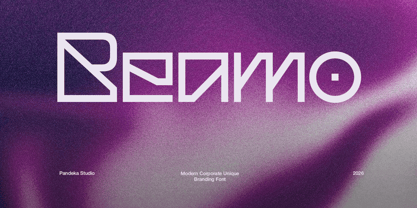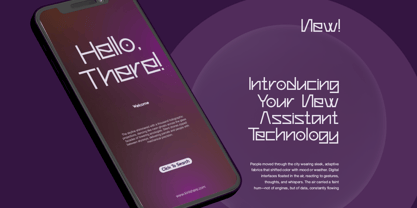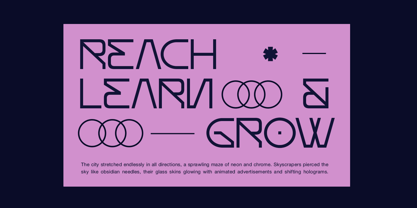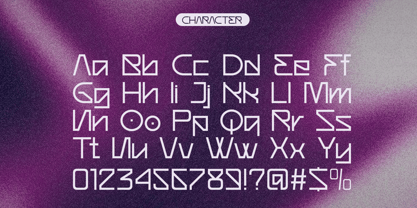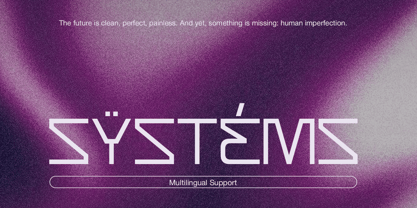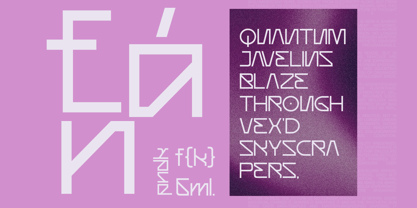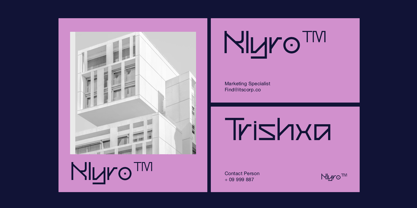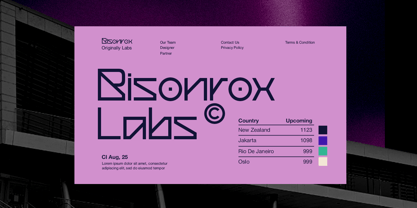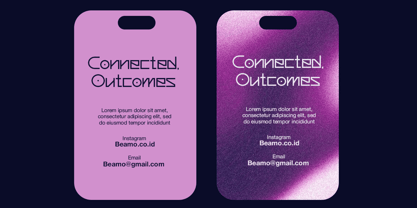
Beamo is a modern branding font with a futuristic and geometric style, designed to create clean, sleek, and innovative visual identities. Its unique letterforms combine minimalist structure with experimental shapes, making it perfect for technology branding, corporate identities, digital interfaces, posters, editorial layouts, fashion campaigns, and modern logo design. The sharp futuristic aesthetic gives every project a bold and sophisticated presence.
Designed with 2 styles: Regular and Slant, Beamo offers flexibility for creative branding and contemporary typography projects. Ideal for startup logos, sci-fi visuals, UI design, music covers, advertising, social media graphics, and modern display typography, this font delivers a strong futuristic atmosphere while maintaining readability and stylish character.
• 2 Style: Regular and Slant
• Full Character Set: Uppercase, lowercase, numbers, symbols, and punctuation